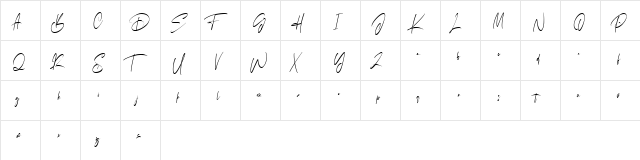
Arteknilo Free Font Regular
| Foundry | MaulanaCreative |
| Designer | MaulanaCreative |
Design Context for Arteknilo Free Font Typeface
Arteknilo Free Font is a composed and adaptable typeface that performs quietly and consistently across a wide range of design contexts.